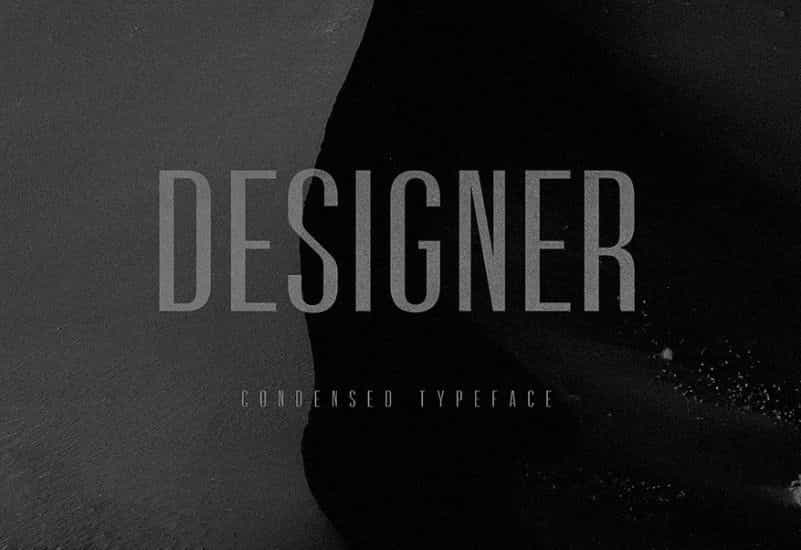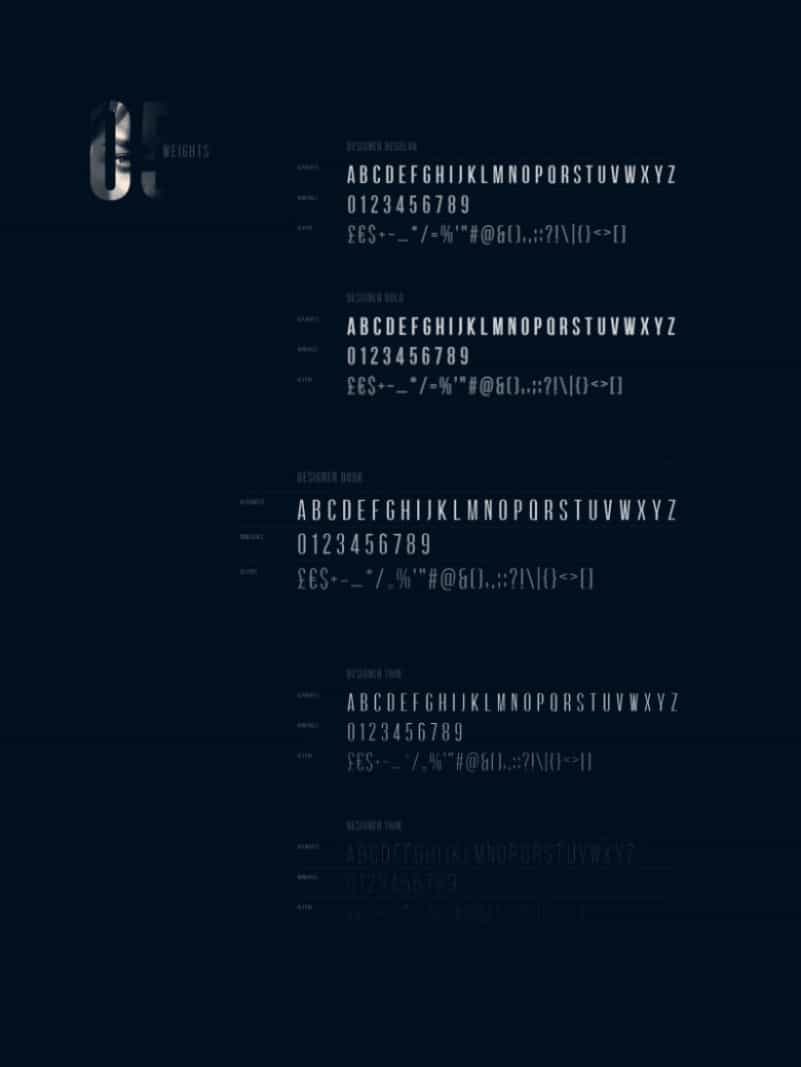
Introducing, Designer Font! A Sport Font. Besides that, it is also ideal for a soft and delicate look which you need on your invitations or the poster. Strong and clean. This typeface is Modern and very good for logos, Tshirt, apparel, quote written by hand quotes product packaging tittle header poster merchandise social media labels branding & greeting cards.